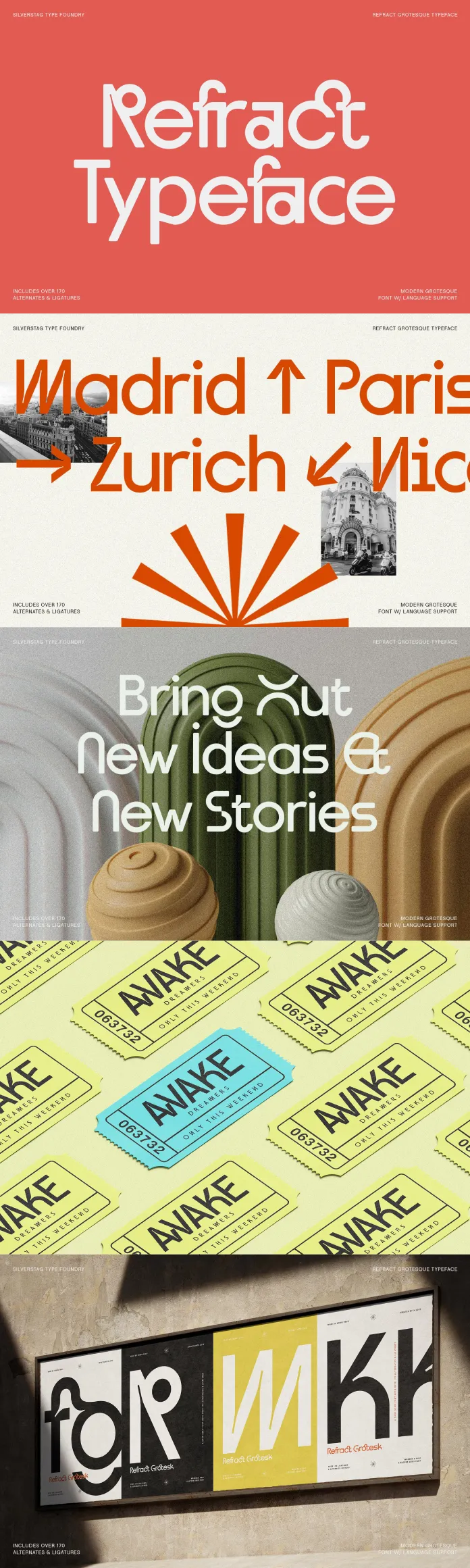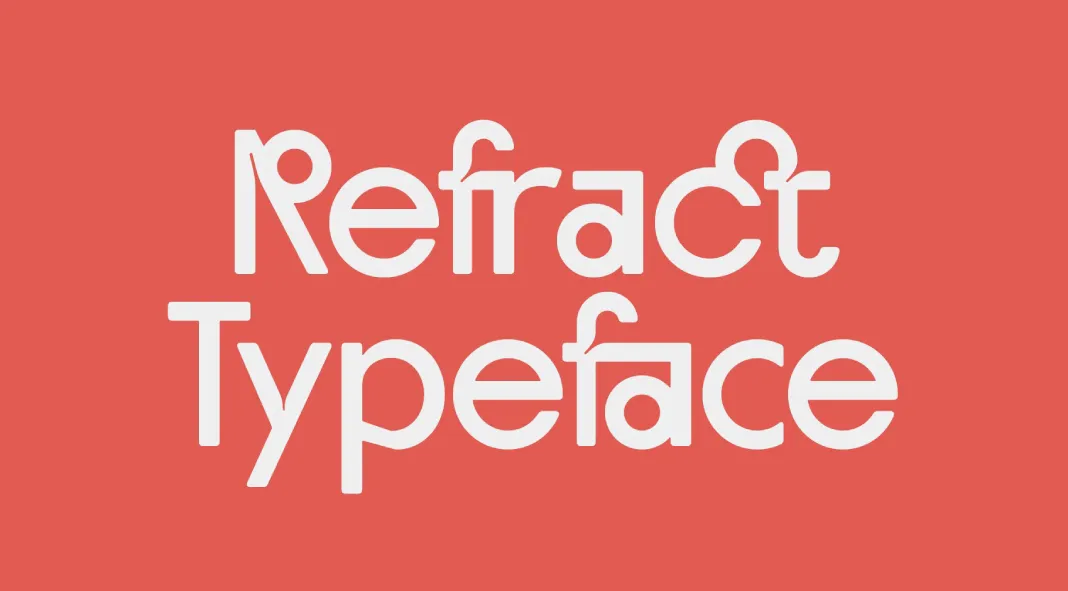
Designed and published by SilverStag, the Refract font family is a versatile collection of four captivating fonts that redefine geometric design. Inspired by the mesmerizing interplay of light and form, Refract offers a captivating blend of clarity, structure, and elegance, now amplified by four distinct styles.
Refract Regular: The Bold Foundation
Refract Regular stands as the cornerstone of this exceptional font family. This grotesk sans serif font exudes confidence and boldness, making it the perfect choice for impactful headlines and assertive branding. With over 170 alternates and ligatures, Refract Regular provides endless possibilities for customization and expressive typography. Its robust design ensures that your text commands attention and leaves a lasting impression.
Refract Outline: Airy and Dynamic
Refract Outline takes the solid foundation of Refract Regular and infuses it with a touch of airiness and dynamism. The open forms of this striking variation create a captivating contrast, making it ideal for headlines, logos, and designs that demand attention. The outline style adds a layer of sophistication and modernity, enhancing the visual appeal of any project.
Refract Round: Playful Sophistication
Softening the edges of the original, Refract Round introduces a playful yet sophisticated touch to the Refract family. Its rounded terminals invite a sense of approachability, making it perfect for branding, packaging, and designs that require a friendly aesthetic. The blend of geometric precision with a softer, more inviting form ensures that Refract Round stands out in a crowded design landscape.
Refract Round Outline: Unique and Eye-Catching
Combining the best of both worlds, Refract Round Outline merges the rounded forms with the open structure of the outline. The result is a unique and eye-catching aesthetic that balances boldness with softness. Ideal for designs that seek to strike a balance between these contrasting elements, Refract Round Outline is a versatile addition to any designer’s toolkit.
A Wealth of Typographic Options
With three sets of uppercase letters and two sets of lowercase letters across all styles, Refract empowers you to craft unique and captivating lettering. The intricate connections between letters add a touch of fluidity and artistry, while the extensive language support ensures your message reaches a global audience. This level of customization and versatility makes Refract an invaluable resource for designers looking to push the boundaries of typographic creativity.
Perfect for Diverse Design Applications
Whether you’re crafting captivating headlines, designing sleek logos, or creating mesmerizing marketing materials, the Refract font family provides the tools to refract your designs into masterpieces of visual storytelling. Elevate your projects with the power of geometry, precision, and endless creativity. The Refract font family by SilverStag is an invitation to explore the dynamic interplay of light, form, and design.